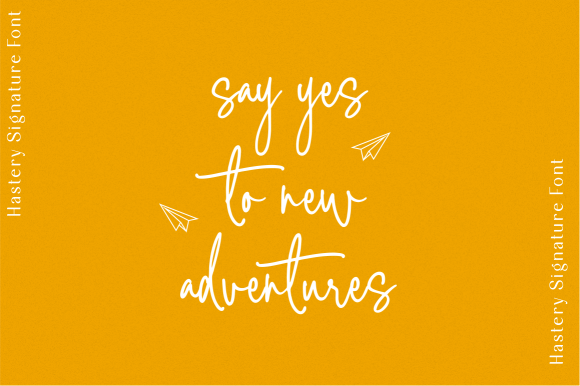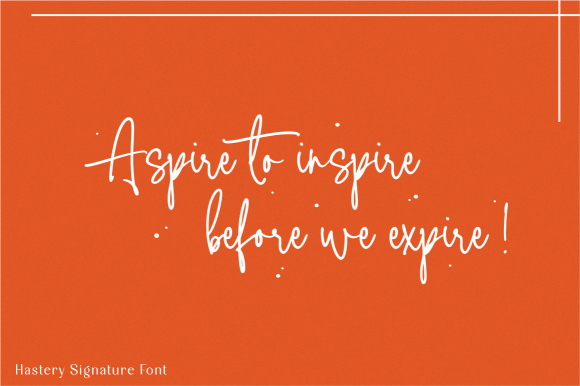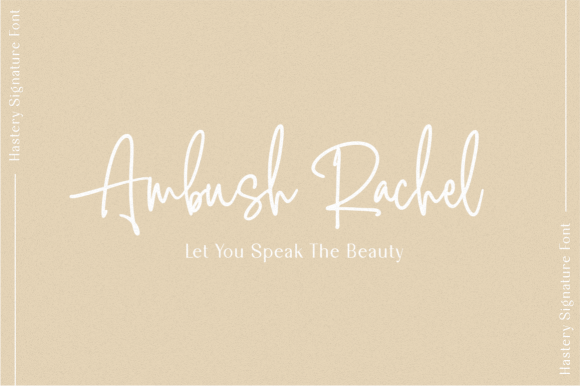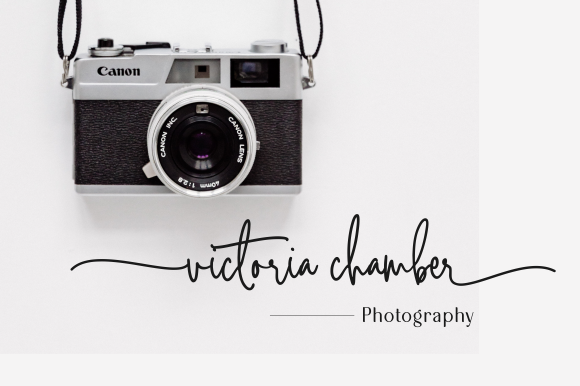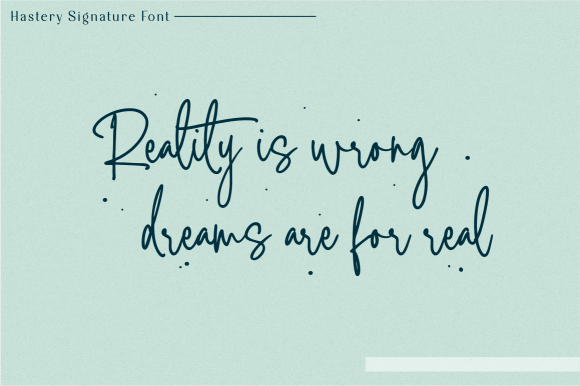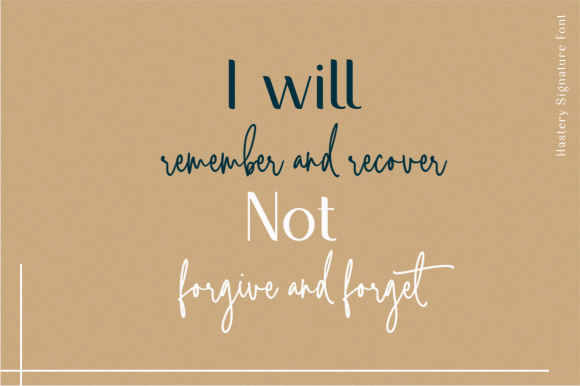
Discover the Elegance of Hastery Font: Elevate Your Designs with Precision and Style
In the realm of typography, a font can make or break the visual appeal of a design. For crafters, designers, and creative enthusiasts, finding the perfect font that combines elegance, readability, and uniqueness is a constant quest. This is where Hastery Font comes into play, a dazzling script font that is poised to become a staple in your font library. With its meticulous craftsmanship and high level of detail, Hastery Font is versatile enough to enhance any creation, regardless of the topic or theme.
The Charm of Hastery Font
Hastery Font stands out with its neatly crafted and highly detailed design. This script font exudes a sense of sophistication and elegance, making it perfect for projects that demand a touch of class and refinement. Whether you’re working on a branding project, a wedding invitation, a fashion blog, or any other creative endeavor, Hastery Font brings a level of professionalism and aesthetic appeal that’s hard to match.
Key Features of Hastery Font
- PUA Encoding: One of the significant advantages of Hastery Font is that it is PUA (Private Use Area) encoded. This feature allows for easy access to all glyphs and swashes, giving designers the flexibility to experiment with various stylistic elements without hassle. PUA encoding ensures that you can unlock the full potential of the font, making your design process smoother and more efficient.
- Versatility: The versatility of Hastery Font is another one of its strong suits. Its design is broad enough to fit into numerous contexts, from formal to casual, making it a go-to font for a wide range of projects. This adaptability means you can use Hastery Font across different mediums, including digital platforms and print materials, without worrying about it losing its charm.
- Detailed Craftsmanship: The attention to detail in Hastery Font is evident in its smooth lines, balanced letterforms, and elegant swashes. Each element of the font has been carefully designed to ensure that it contributes to the overall harmony and beauty of your design.
Applications of Hastery Font
The applications of Hastery Font are vast and varied. Here are a few scenarios where this font truly shines:
- Branding and Logotypes: For businesses looking to establish a strong brand identity, Hastery Font can be used to create memorable logos and branding materials that convey elegance and sophistication.
- Wedding and Event Invitations: The font’s elegant design makes it perfect for wedding invitations, event posters, and other ceremonial materials where a touch of class is desired.
- Fashion and Beauty: For fashion blogs, beauty websites, and related marketing materials, Hastery Font offers a stylish and contemporary look that appeals to the target audience.
- Packaging and Product Design: The font’s readability and aesthetic appeal also make it suitable for product packaging, adding a premium feel to any product.
Tips for Maximizing the Potential of Hastery Font
To get the most out of Hastery Font, consider the following tips:
- Experiment with Swashes: Don’t hesitate to explore the swashes and glyphs available in Hastery Font. These elements can add a unique touch to your design, making it stand out.
- Mix and Match: Combine Hastery Font with other fonts to create a contrasting effect. Its script style pairs well with sans-serif fonts for a modern look or with serif fonts for a classic feel.
- Adjust Size and Color: Play with the size and color of the text to create visual hierarchy and emphasize key points in your design.
| Font Name | Hastery Font |
| Author | Sronstudio |
Hastery Font is more than just a script font; it’s a design asset that can elevate your creations to new heights. With its detailed craftsmanship, PUA encoding for easy access to glyphs and swashes, and versatile design, it’s an excellent addition to any designer’s toolkit. Whether you’re a professional designer or a DIY enthusiast, Hastery Font offers the perfect blend of style, elegance, and functionality to make your projects shine. So, why wait? Discover the elegance of Hastery Font today and transform your designs with its dazzling script style.